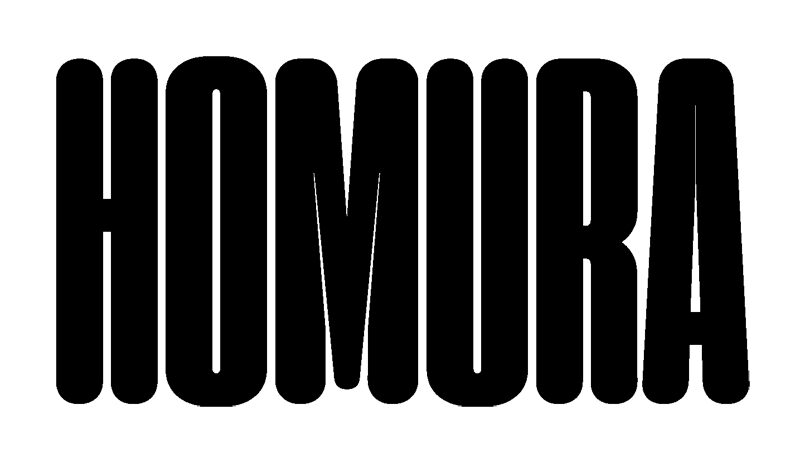
Homura Rounded font family designed by Arterfak Project is a sans serif typeface in 2 font styles. This free font family offers a retro-inspired and geometric design that aims to make a stellar first impression. Characterized by its condensed look and modern appeal, it manages to balance its strong presence with a friendly appearance.
Its simple architecture with the slight squashed shape adds another element to its setting. Whatever message you wish to deliver, Homura Rounded is keen on helping you make the impact you’ve been waiting for. It can be employed for company and business branding designs, ads, magazine cover, and invitation design.